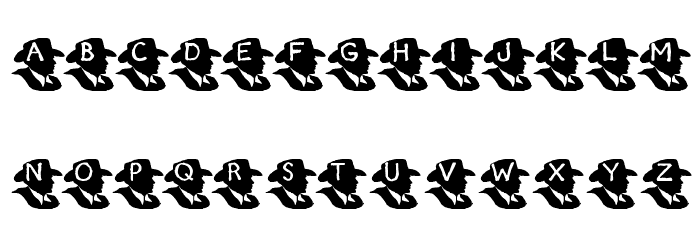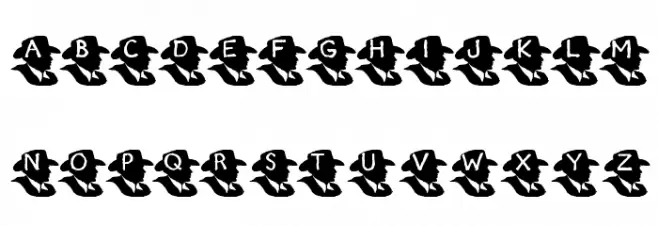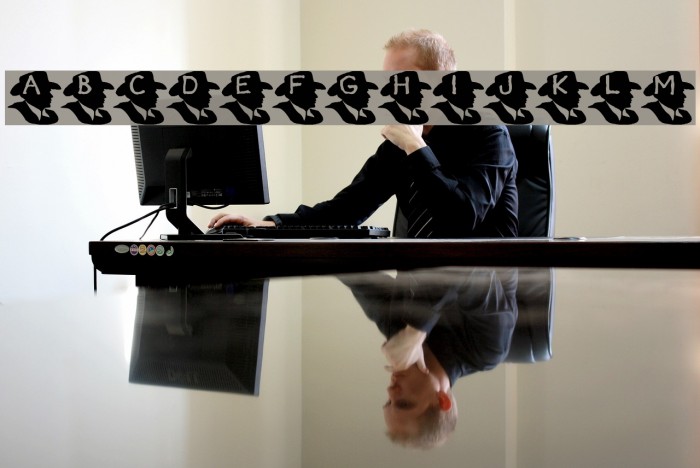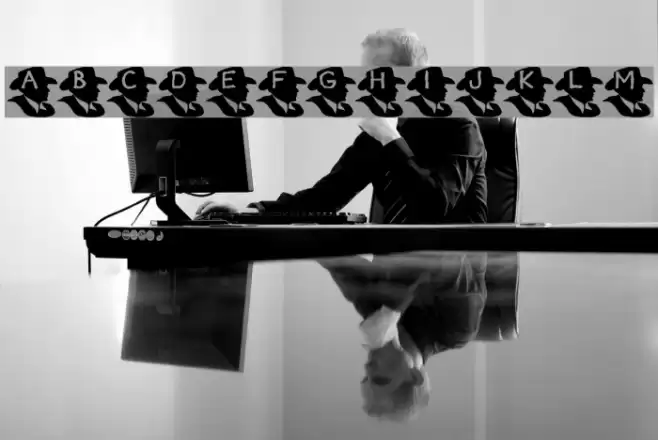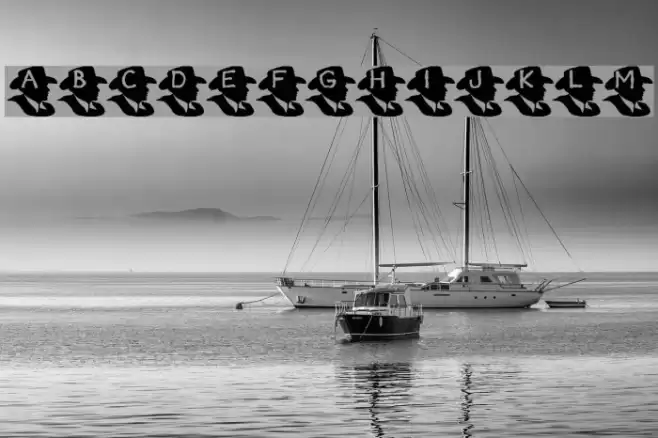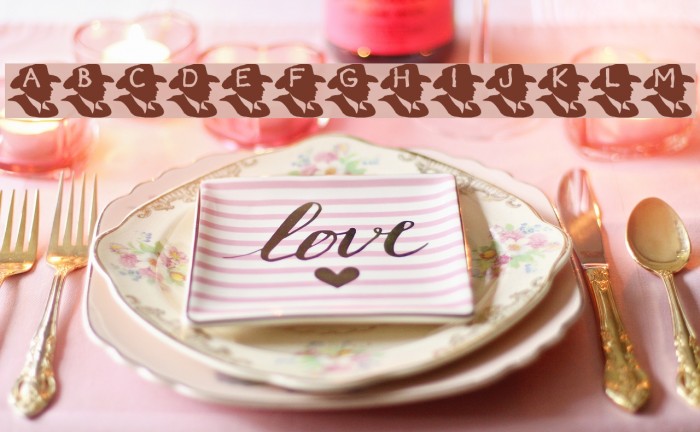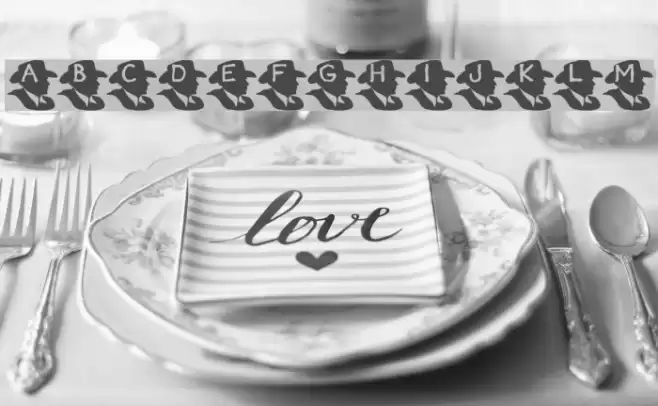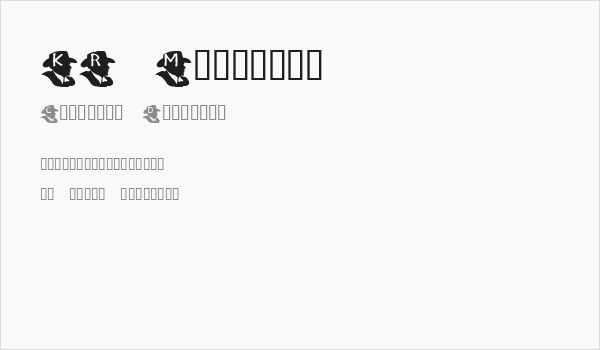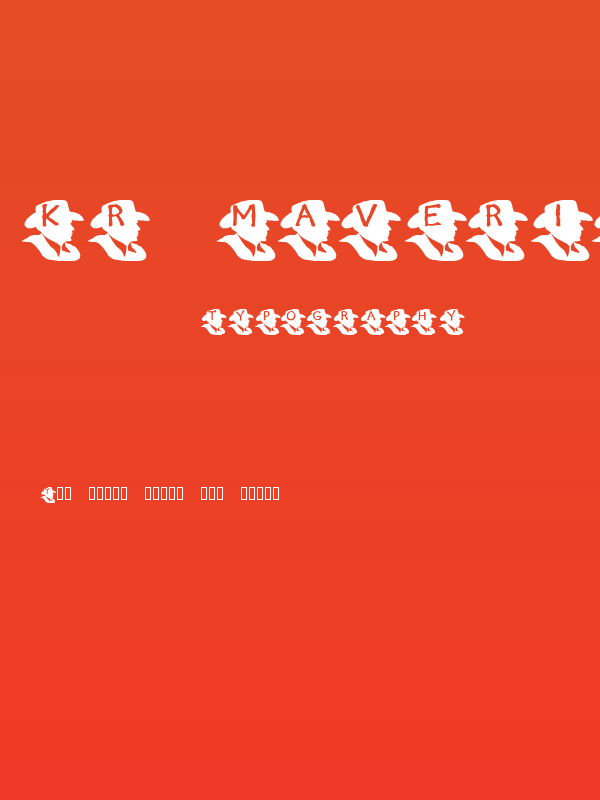
KR Maverick Font
KR Maverick Description
This font features a bold, decorative style with each character embedded within a silhouette of a cowboy hat and bandana, creating a unique and playful western theme. The characters are uppercase only, with a consistent and striking appearance. The design is highly stylized, making it suitable for thematic projects that require a strong visual impact. The font's distinctiveness lies in its ability to convey a sense of adventure and ruggedness, ideal for projects that aim to capture the essence of the wild west or cowboy culture. The characters are evenly spaced within their decorative frames, ensuring readability while maintaining the thematic design.
| Use Case | Logos, Headlines, Themed Events |
| Proposed Projects | Ideal for western-themed posters, event invitations, themed party decorations, or any project requiring a playful, adventurous aesthetic. |